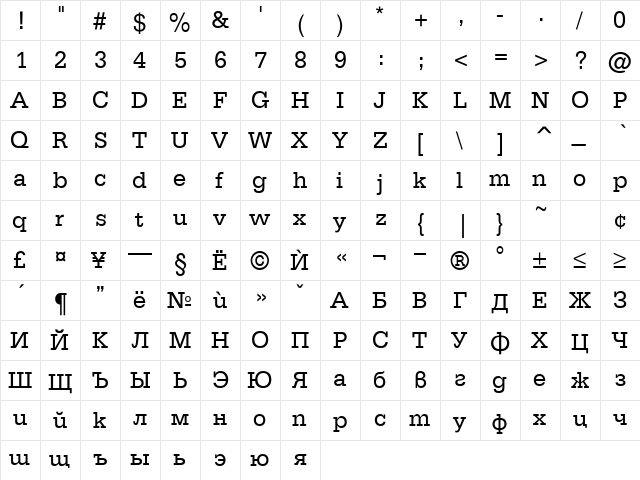
SiriusB Normal
Design Context for SiriusB Typeface
SiriusB offers clean, dependable letterforms without strong stylistic allegiance, making it a practical choice for designers who need flexibility.